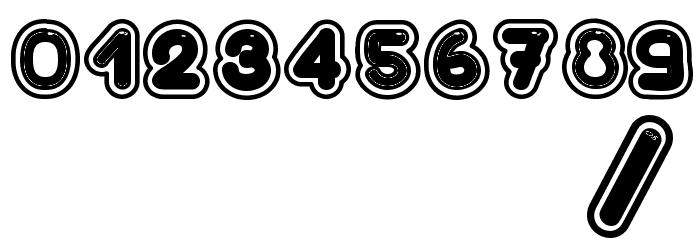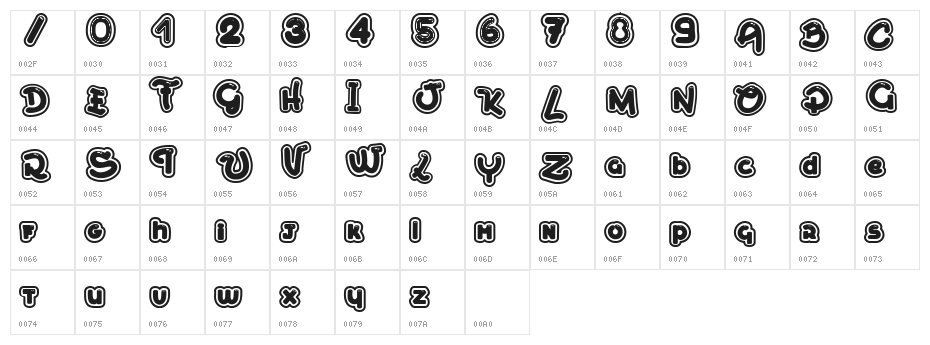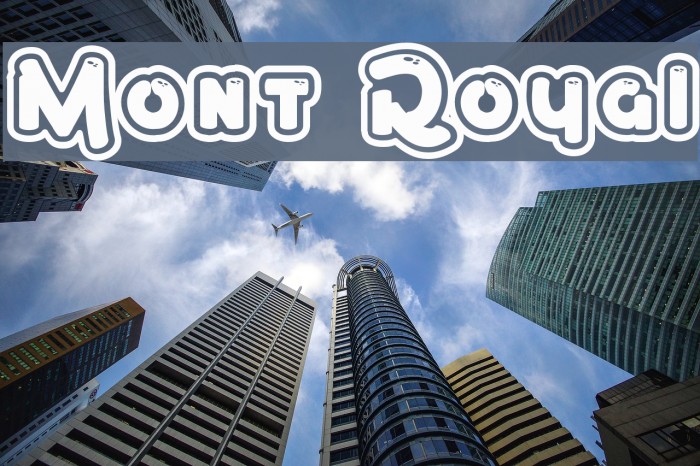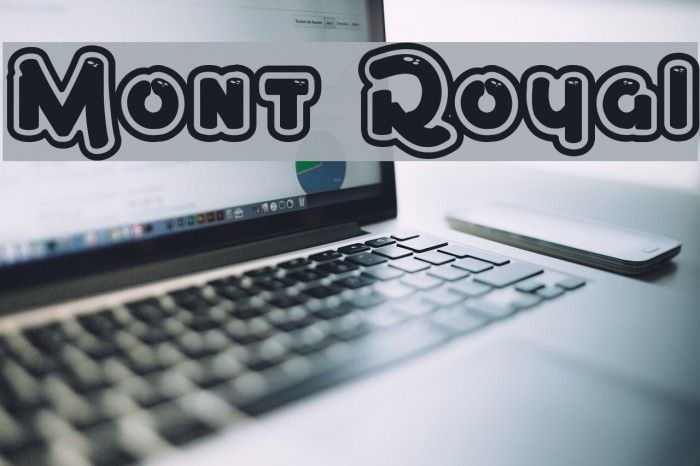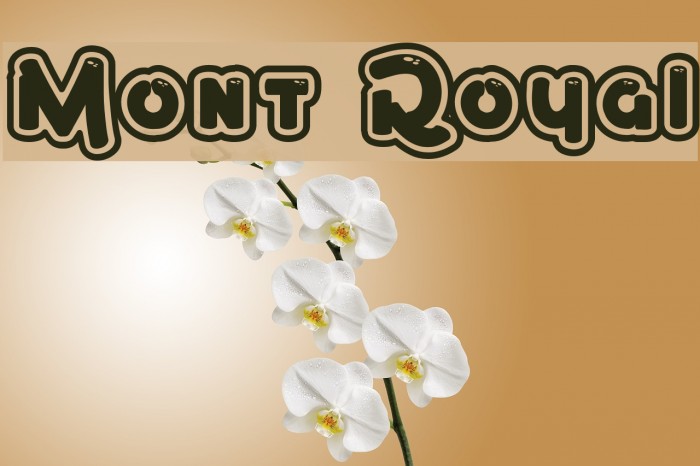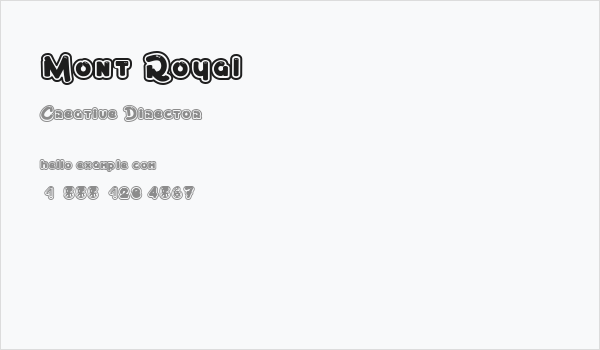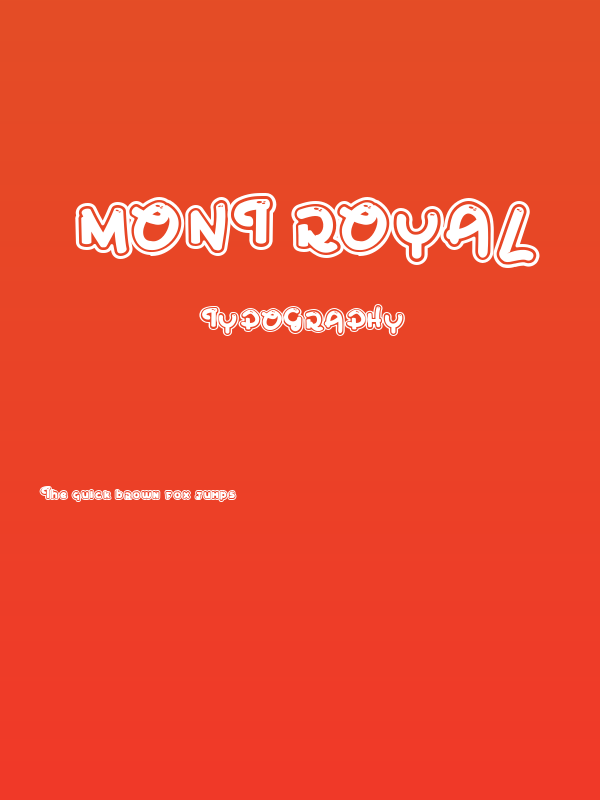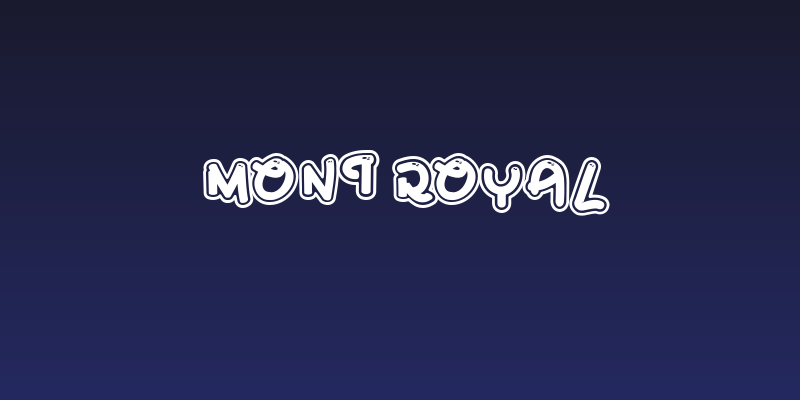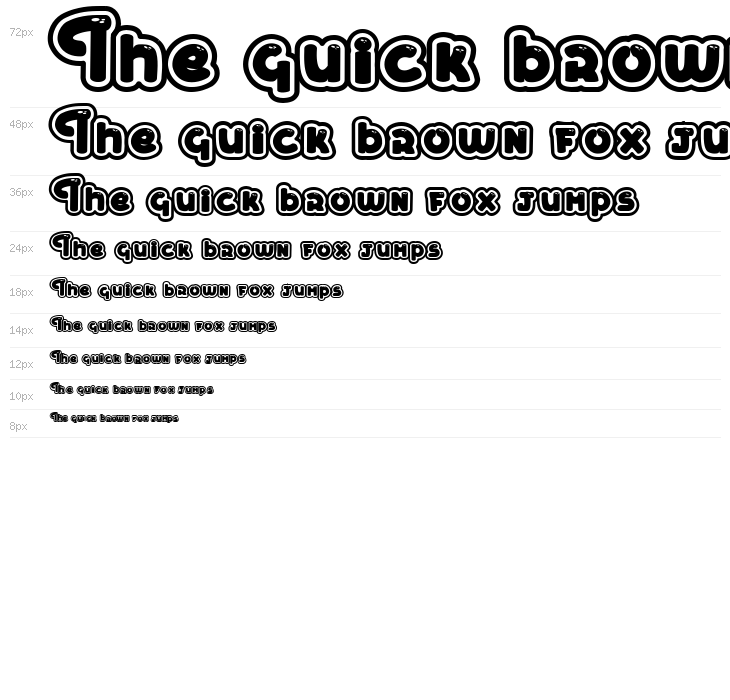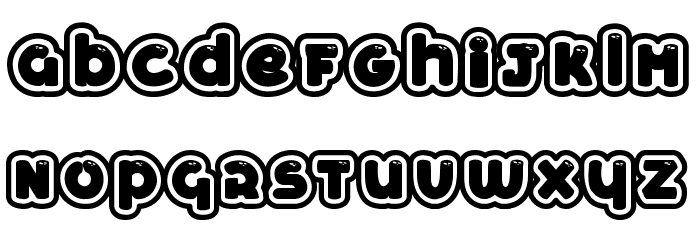
Mont Royal Font
Mont Royal Description
This font features a bold and playful design with thick, rounded edges and a double outline that gives it a three-dimensional appearance. The characters are uniformly wide, creating a sense of balance and consistency across the alphabet. The uppercase and lowercase letters maintain a cohesive style, with the lowercase letters slightly more compact. Numbers and special characters follow the same design principles, ensuring versatility in various contexts. The font's unique style makes it stand out, ideal for projects that require a fun and engaging visual element.
| Proposed Projects | Ideal for children's books, playful branding, posters, and event invitations. |